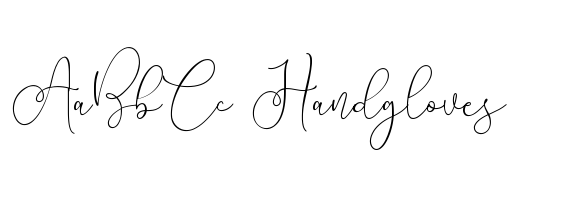
Lilypaly
by Sronstudio
The Lilypaly Font Family was designed by Muhamad Yusron Billah and published by Sronstudio. Lilypaly contains 1 styles. More about this family
Lilypaly is a modern and elegant font with a lot of stylistic alternates for your beautiful project. I made this font carefully so that each letter could be connected well and elegantly either using alternate or not. Lilypaly includes start and ending swash, and middle swash for some letters, this is very easy to use. Lilypaly is perfect for many different project such as logos & branding, invitation, stationery, wedding designs, social media posts, advertisements, product packaging, product designs, label, photography, watermark, special events or anything.
Designers: Muhamad Yusron Billah
Foundry: Sronstudio